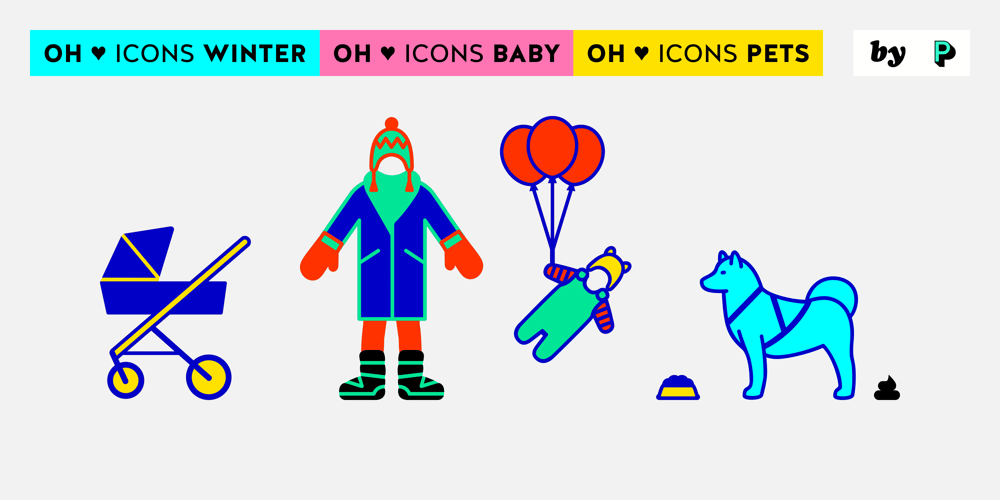
Oh Icons Font Family was designed by Małgorzata Frąckiewicz and published by Poważne Studio. Oh Icons contains 6 styles and family package options. Oh Icons is a family of 382 icons divided into three thematic sets. Each set contains 52 characters, plus alternate glyphs in Open Type Stylistic sets. Every icon can be used independently, but you can also merge them to design an adult or a baby figure, a nursery room or to dress a dog. Black backgrounds will let you colour your icons. Have fun and stay tuned for the new topics already in the works!